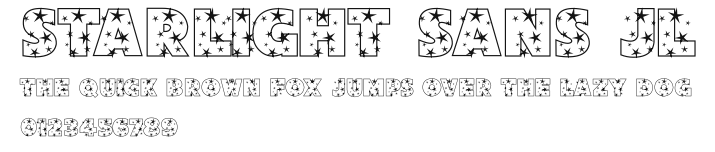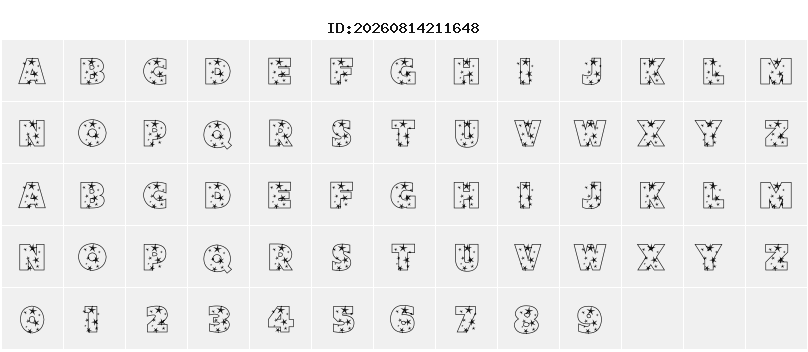
• Font Name: Starlight Sans JL
• Designer: Jeffrey N. Levine
• Manufacturer: Jeff's Fonts & Dingbats
• Description: "Sans Poster Bold JL" reworked with a starry effect.
About Starlight Sans JL.ttf
Starlight Sans JL.ttf is a modern, elegant sans-serif font designed for ultimate readability and visual harmony. Perfect for branding, headlines, web design, and print materials.